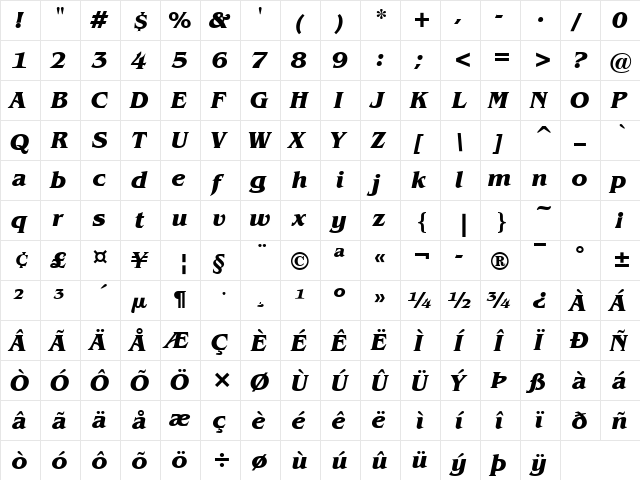
Mirage Bold Italic
Design Context for Mirage Typeface
Mirage takes a measured approach to typography — its balanced proportions and neutral character make it a reliable workhorse for both digital and print work. The dynamic lean of this cut emphasises speed and emphasis in any layout. Its bold stroke weight gives it real presence on the page.
Pro Tip: Use Mirage for emphasis, pull quotes, and subheadings where its slanted energy can add rhythm to the layout.